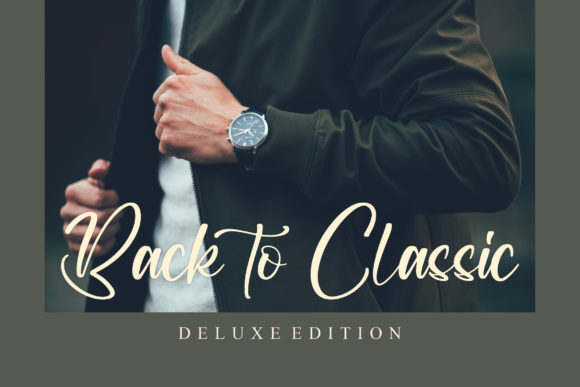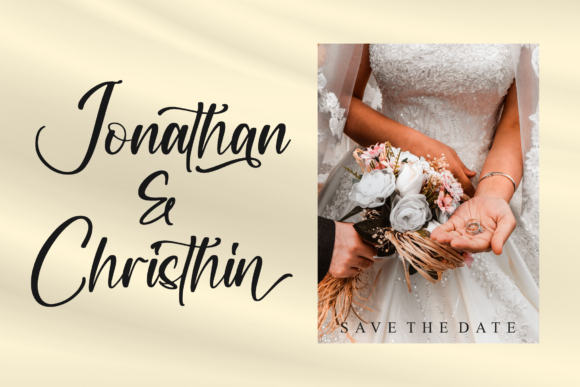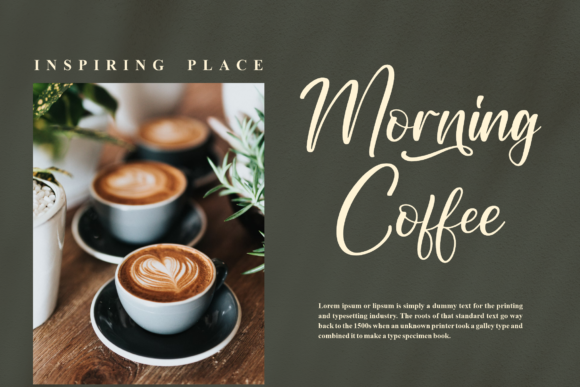
Introduction to Raykania Font
As designers, we’ve all been there – staring at a blank canvas, waiting for that perfect font to bring our creative project to life. And then, like a breath of fresh air, you stumble upon the perfect script font that elevates your design to new heights. For those who have been searching for that elusive font, we’re excited to introduce the Raykania Font – a high-quality, free download that’s about to become your go-to design resource.
With its beautiful script taste, Raykania Font is perfect for any project that requires a touch of elegance. From logos and branding projects to homeware designs and product packaging, this versatile font is sure to impress. And with its transparent background, you can easily combine it with other design elements to create stunning visuals.
As a valuable addition to any designer’s toolkit, the Raykania Font offers a wealth of creative possibilities. Whether you’re working on a special event invitation, a book cover, or a simple quote, this PUA encoded font makes it easy to access its amazing glyphs and ligatures. Get ready to unlock your full design potential with the Raykania Font – a free download that’s sure to become a design favorite.
Key Features of Raykania Font
- High-quality design for creative projects: Raykania Font is designed to provide a unique touch to your designs, making it an ideal choice for various creative projects.
- Transparent background: This font features a transparent background, allowing you to easily combine it with other design elements and maintain a clean aesthetic.
- Large character set: The font includes a large character set, covering a wide range of languages, making it a versatile choice for global projects.
- High-resolution design: Raykania Font is designed at a high resolution (300 DPI), ensuring that it looks crisp and clear even when scaled up.
- Perfect for digital designs: With its modern and sleek design, Raykania Font is ideal for digital designs, including website headers, social media graphics, and more.
Honest Review: Raykania Font
As a designer, I’m always on the lookout for high-quality fonts to elevate my creative projects. Recently, I came across the Raykania Font, and I was intrigued by its unique design.
Here are some of the things that work well with this font:
- ✨ Unique and creative design that stands out from the crowd.
- ✨ High-quality font that’s perfect for projects where you need a touch of elegance.
- ✨ Transparent background, allowing for seamless integration into any design.
However, I did encounter some limitations with this font:
- ⚠️ Limited character set, which may be a concern for designers who need to work with a wide range of languages.
- ⚠️ Not suitable for large-scale commercial projects, as it may not be scalable to the required size.
Overall, I think the Raykania Font is a solid addition to any designer’s toolkit. While it may have some limitations, its unique design and high-quality rendering make it an excellent choice for creative projects where you want to make a statement.
Tips for Getting the Most Out of Raykania Font
For a transparent background, use the font in combination with a transparent image or design element. Experiment with different font sizes and colors to add visual interest to your project.
Use Raykania Font for logos, business cards, social media graphics, and presentations. Its high quality design makes it suitable for a variety of creative projects.
Yes, the Raykania Font has a transparent background, making it ideal for use with images or videos that have a transparent background. This feature is especially useful for designers working on creative projects that require a high level of customization.
Is the Raykania Font suitable for high-quality print projects?
Yes, the Raykania Font is designed to be high-quality and suitable for use in print projects. Its clear and legible design ensures that it will look great in print, whether it’s on business cards, brochures, or other marketing materials.